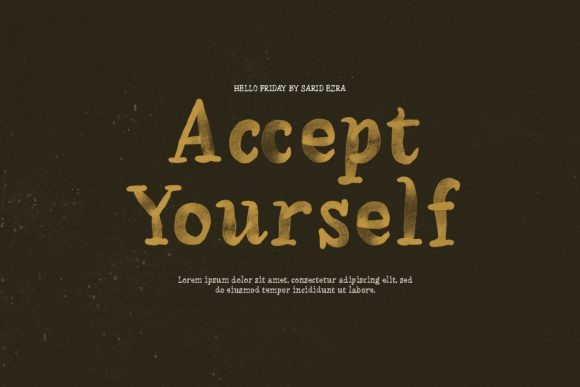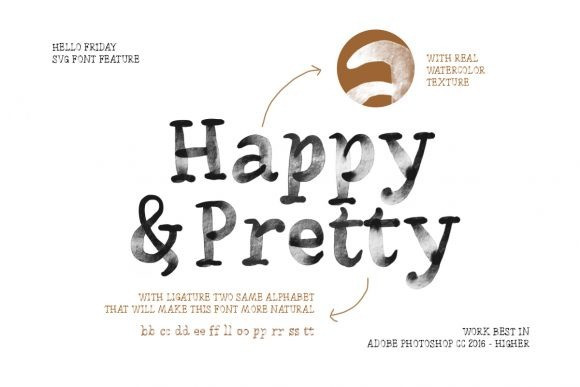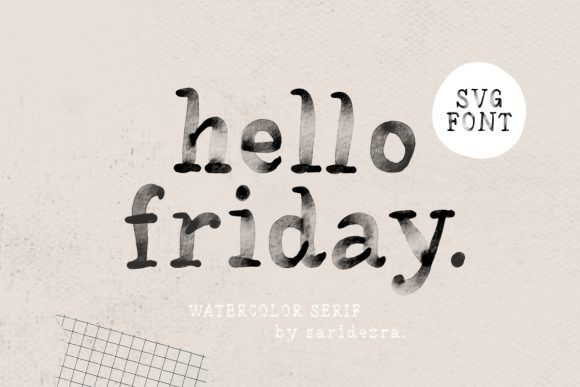
Hello Friday Display Font
Hello Friday is a cool and organic serif font. It has a classy, elegant and modern look that can be used for logos, branding, invitations, stationery, wedding designs, social media posts, and much more!